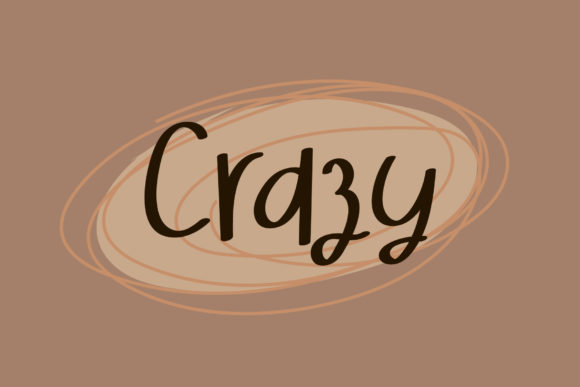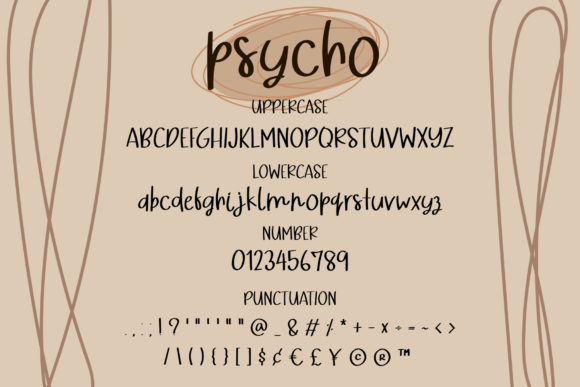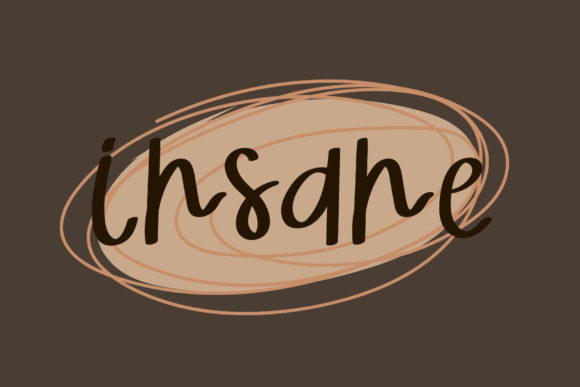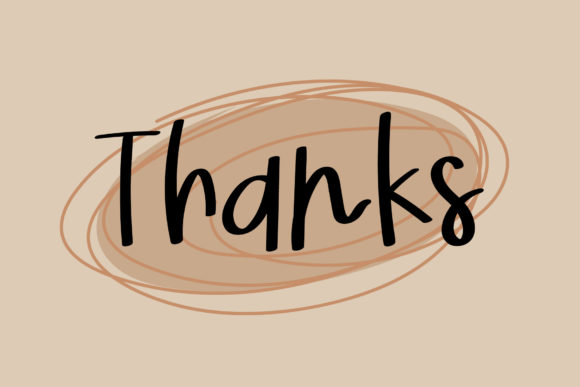
Introduction to Psycho Font
Have you ever stared at a blank canvas, eager to unleash your creativity but struggling to find the perfect font to bring your vision to life? That’s exactly what happened to me the other day, and I was about to give up when I stumbled upon the Psycho Font. Its elegant, handwritten design instantly caught my attention, and I knew I had found my missing piece.
| 📌 Product Name | Psycho Font |
| 👤 Author | Wanida Toffy |
As a designer, I can attest to the importance of having a high-quality design resource like the Psycho Font in your toolkit. With its contemporary and fresh feel, it’s the perfect addition to any creative project, from wedding invitations to social media graphics. And the best part? It’s available for free download, making it a valuable asset for designers of all levels.
Whether you’re working on a design project with a transparent background or a bold, eye-catching logo, the Psycho Font is sure to elevate your work to the next level. So, what are you waiting for? Dive into the world of Psycho Font and discover why it’s quickly becoming a favorite among designers.
Key Features of Psycho Font
- High-quality design resource ideal for creative projects, posters, and flyers.
- Comes with a transparent background, allowing for easy customization and blending with other elements.
- Psycho Font is available in a single weight, with a unique and bold design that makes it perfect for headlines and titles.
- Resolution-independent, ensuring that the font remains crisp and clear at any size or resolution.
Honest Review: Psycho Font
I recently stumbled upon the Psycho Font, and I must say it’s been a game-changer for my design projects. The high-quality design and unique style make it a valuable addition to any creative project.
What works well: ✨ The transparent background is a huge plus, making it easy to overlay on different images and backgrounds. The font is also highly customizable, allowing for endless creative possibilities. The free download option is a major bonus, as it saves me time and money.
The design itself is bold and attention-grabbing, perfect for creating a sense of tension or drama in a design. I’ve used it for a variety of projects, from posters to social media graphics, and it always adds a touch of sophistication.
Limitations: ⚠️ The font may not be suitable for all types of projects, particularly those requiring a more subtle or elegant look. Additionally, the bold style can be overwhelming if not used carefully.
Overall, I’m thoroughly impressed with the Psycho Font. Its unique design and high-quality features make it a valuable resource for any designer. If you’re looking to add a touch of edginess to your creative project, I highly recommend giving it a try.
Tips for Getting the Most Out of Psycho Font
Use a transparent background to make the font stand out in your design. Experiment with different font sizes and styles to create a unique look. Use Psycho Font in combination with other design resources to create a cohesive and high-quality design.
Psycho Font is ideal for use in creative projects such as graphic design, digital art, and typography. It can also be used for free download on personal projects, such as posters, flyers, and social media graphics.